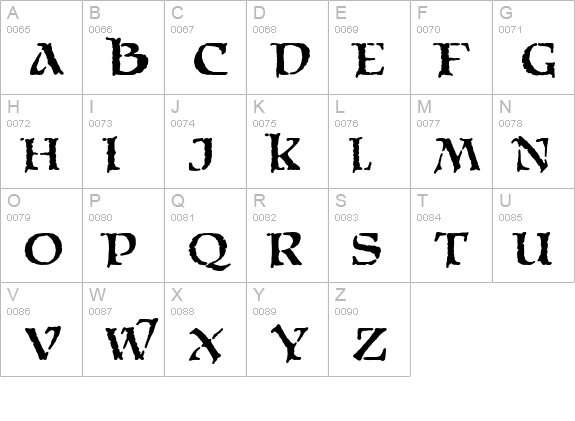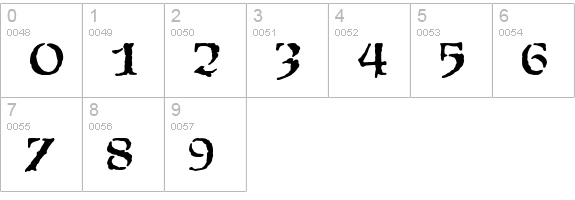
Moria Citadel Font Details
Moria Citadel font is a stunning display typeface that exudes power and elegance. With its bold lines and intricate details, this font is perfect for making a statement in your designs. Whether you're working on a poster, logo, or branding project, Moria Citadel will surely captivate your audience. What makes Moria Citadel font even more appealing is that it is available for free download at FontsMarket.com. This means you can effortlessly incorporate this majestic font into your projects without any cost. Don't miss out on the opportunity to enhance your designs with the timeless beauty of Moria Citadel font. Download it now and let your creativity soar!